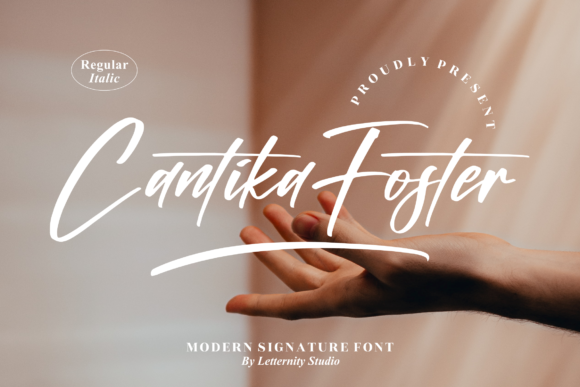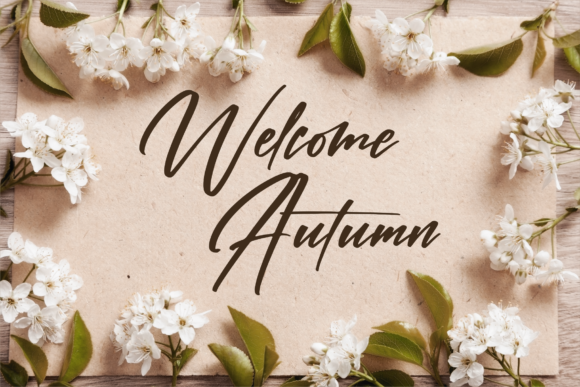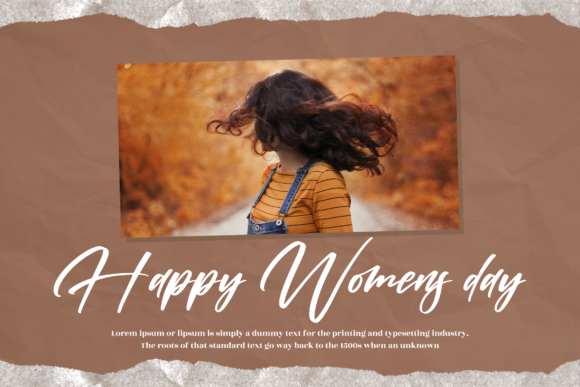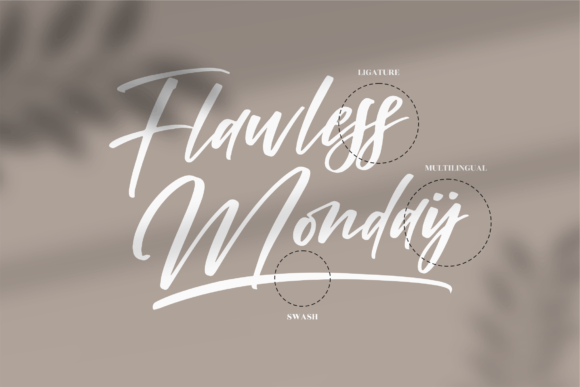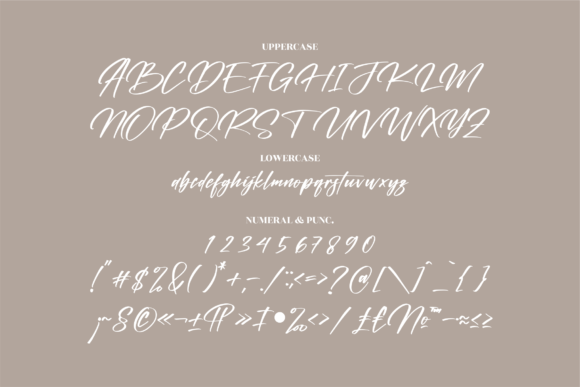
About Cantika Foster Font
Cantika Foster is a distinct graceful script font. Fall for its ravishing style and use it to create gorgeous designs. This font is PUA encoded which means you can access all glyphs and swashes with ease!